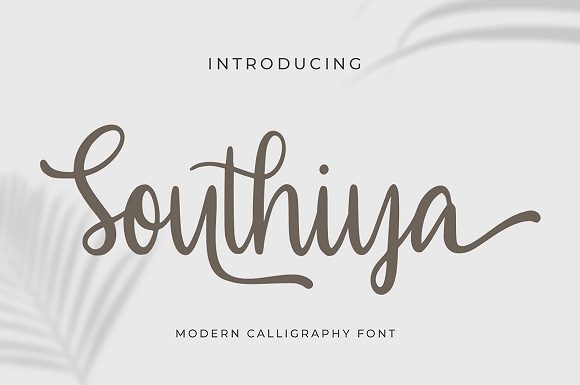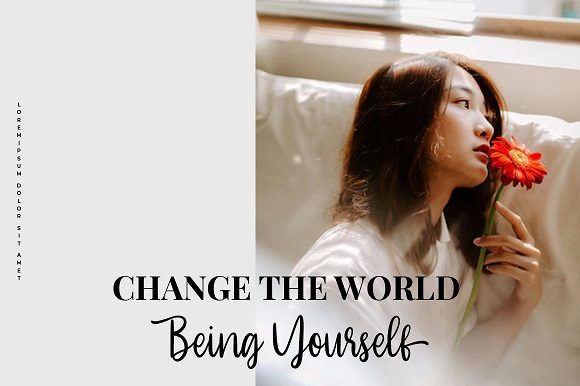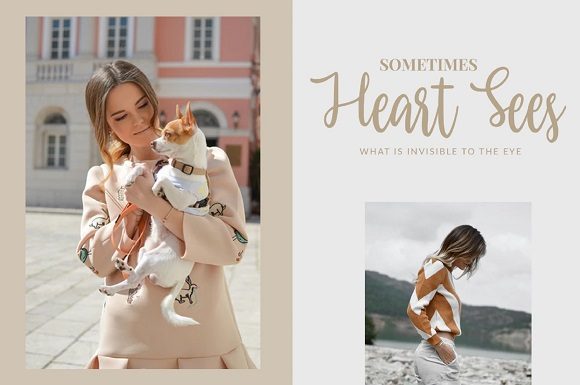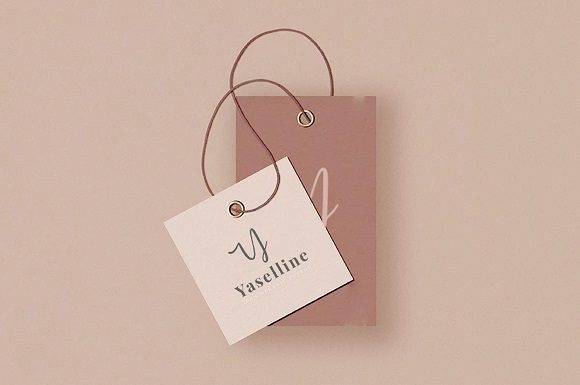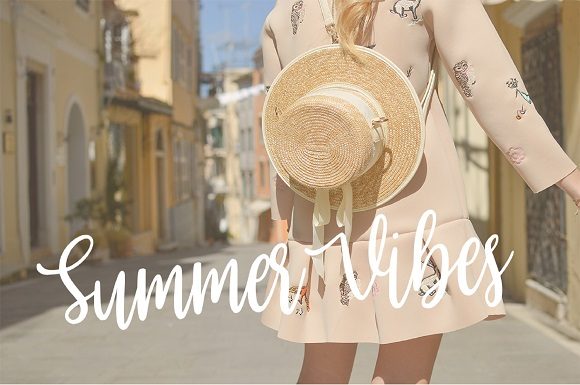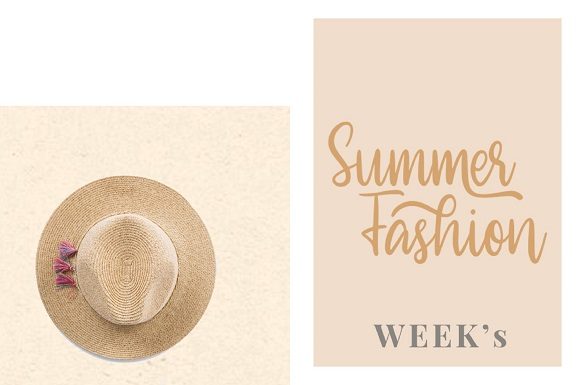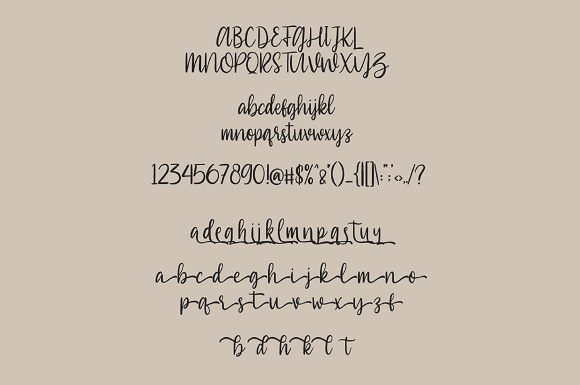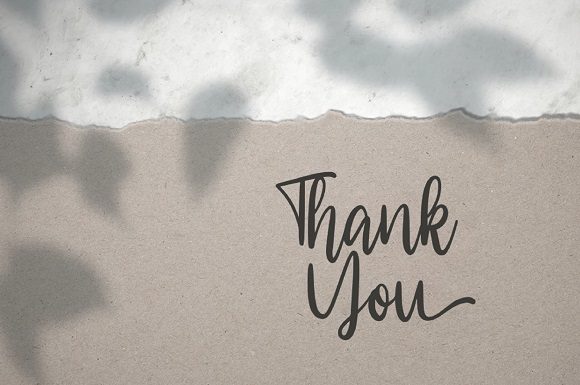
Southiya Font
About Southiya Font
Southiya is an equally elegant and authentic script, full of love. Use it to add a romantic spark to any design project!